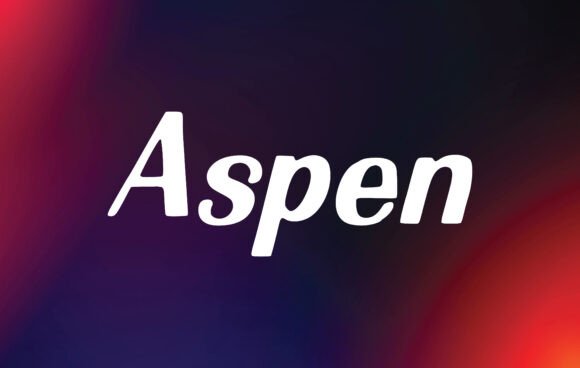
I’ll never forget the design struggle I faced while working on a magazine cover project. I had a tight deadline, and my client was particular about the font – it had to be eye-catching, yet easy to read. After scouring through countless font libraries, I stumbled upon the Aspen Font, and it instantly became my favorite. Its versatility, style, and clarity won me over, and I’ve been hooked ever since. In this article, I’ll share my experience with the Aspen Font, its features, and how to make the most of it in your creative projects.
An Honest Review of Aspen Font
- ✨ Versatility: Aspen Font is designed to be a go-to favorite for various creative projects, from magazine covers to social media posts.
- ✅ Easy to Read: Its clear and clean design makes it perfect for both titles and body text.
- 💡 OpenType Features: Aspen Font comes with a range of OpenType features, including stylistic alternates, glyphs, and ligatures, which can elevate your designs.
- 🎨 Style and Personality: This font adds a touch of style and personality to any design, making it stand out from more generic fonts.
While the Aspen Font is an excellent choice for many projects, there are a few minor quirks to be aware of:
- 🤔 Limited Condensed Styles: The font family has limited condensed styles, which might not be ideal for designs requiring extremely narrow text.
- ⚠️ Glyph Compatibility: Some glyphs might not work seamlessly with certain design software or platforms, so it’s essential to test compatibility before finalizing your design.
The Story Behind Aspen Font
The Aspen Font was designed with the goal of creating a versatile, modern font that could cater to various creative needs. Inspired by the natural beauty of the Aspen tree, the font’s clean lines and elegant curves evoke a sense of sophistication and style. The designer aimed to create a font that would be both easy to read and visually appealing, making it perfect for a wide range of projects.
Q: What makes Aspen Font suitable for both titles and body text?
A: The font’s clear and clean design, combined with its OpenType features, makes it an excellent choice for both titles and body text.
Q: Is Aspen Font compatible with non-Latin languages?
A: The font’s compatibility with non-Latin languages may vary; it’s best to test compatibility before finalizing your design.